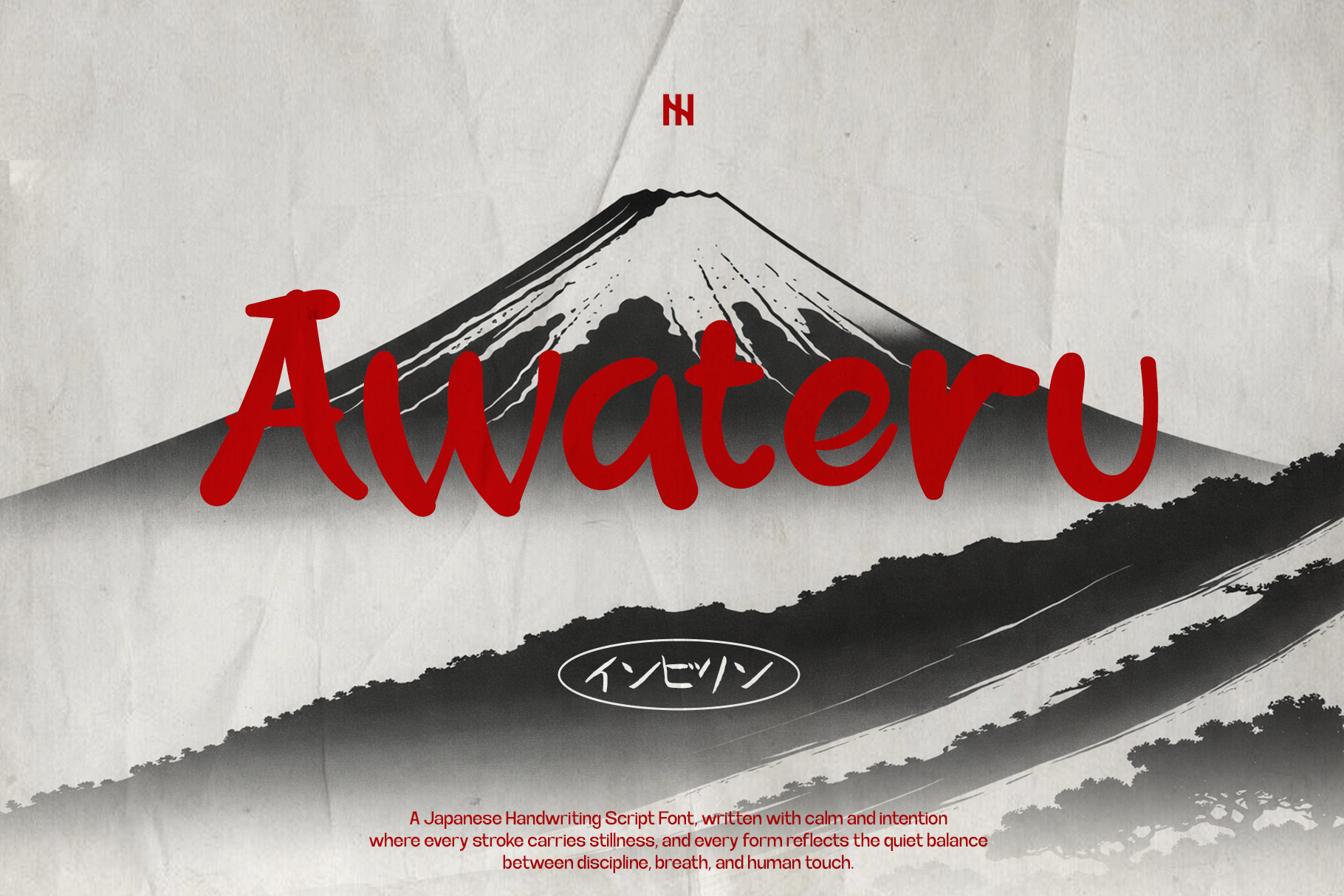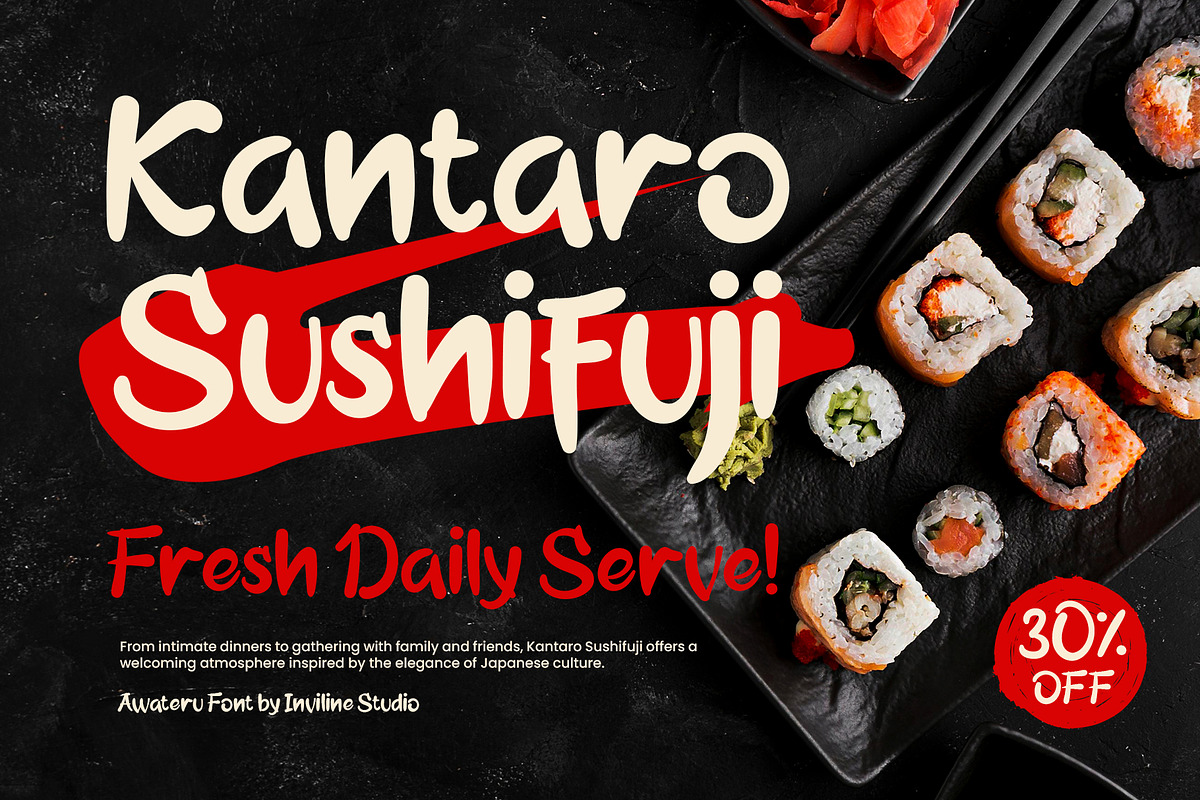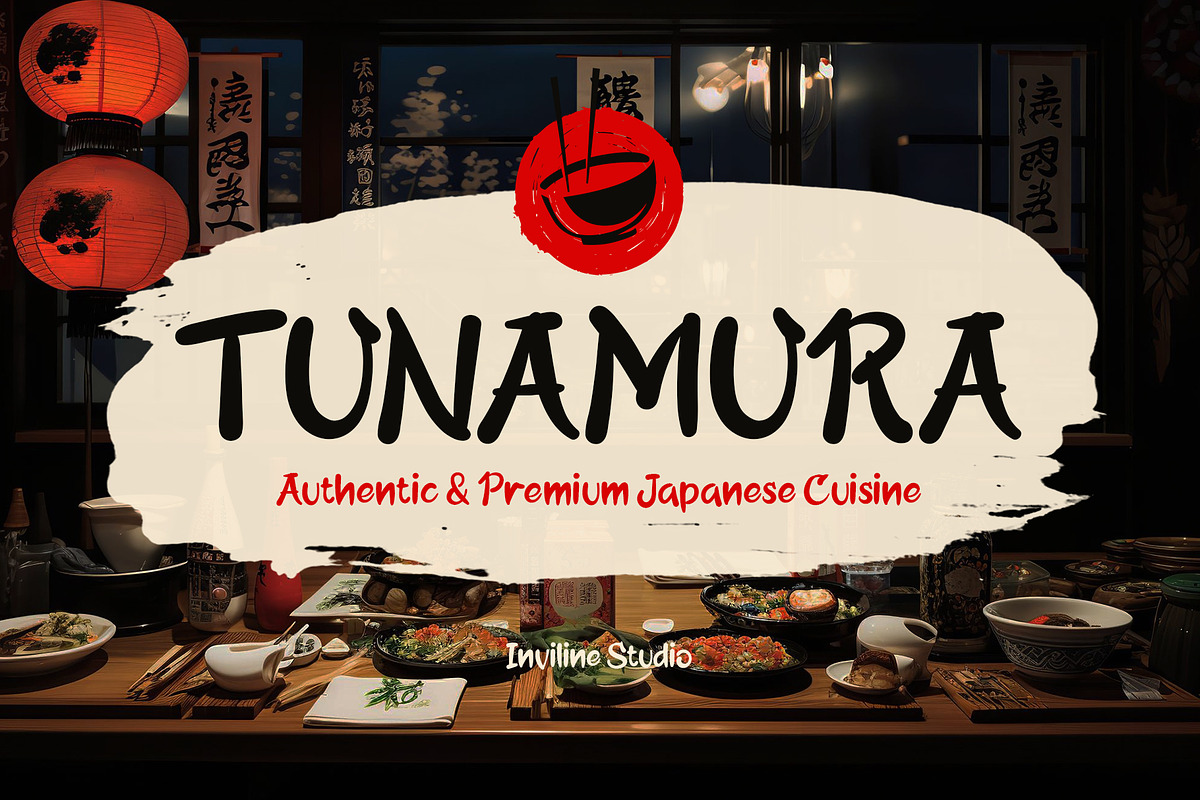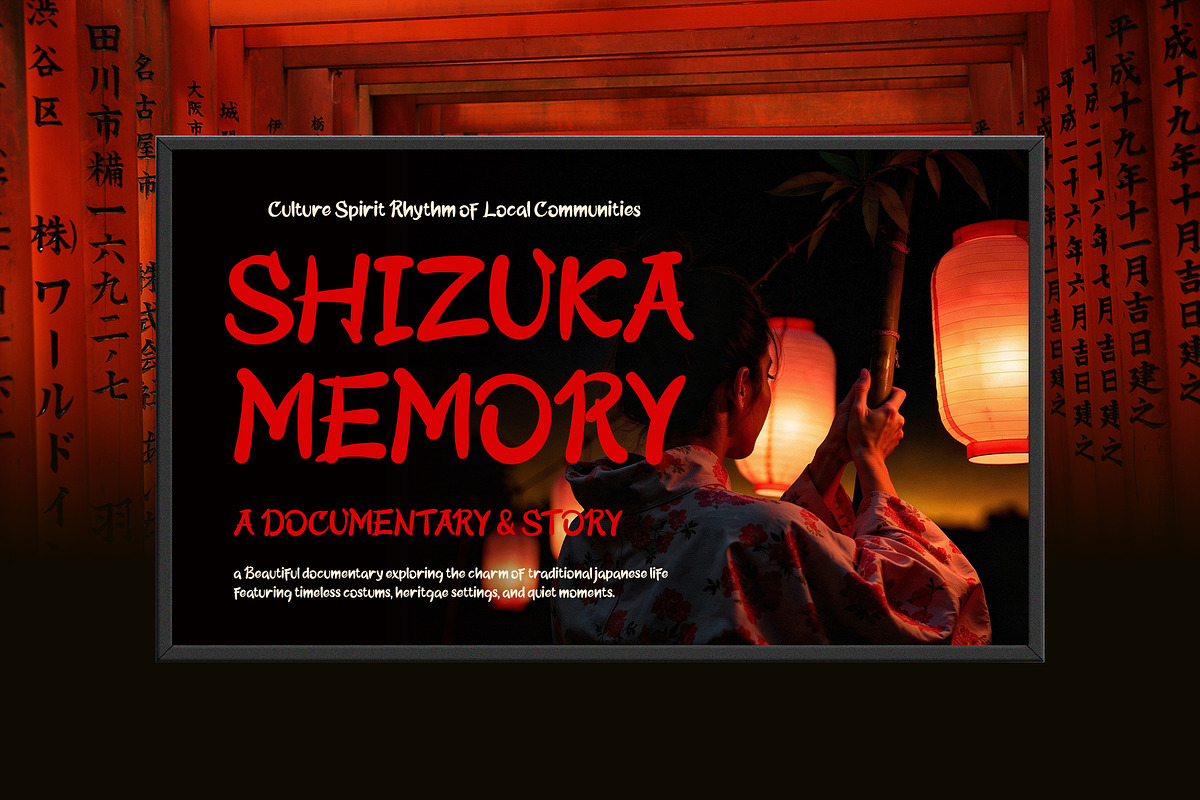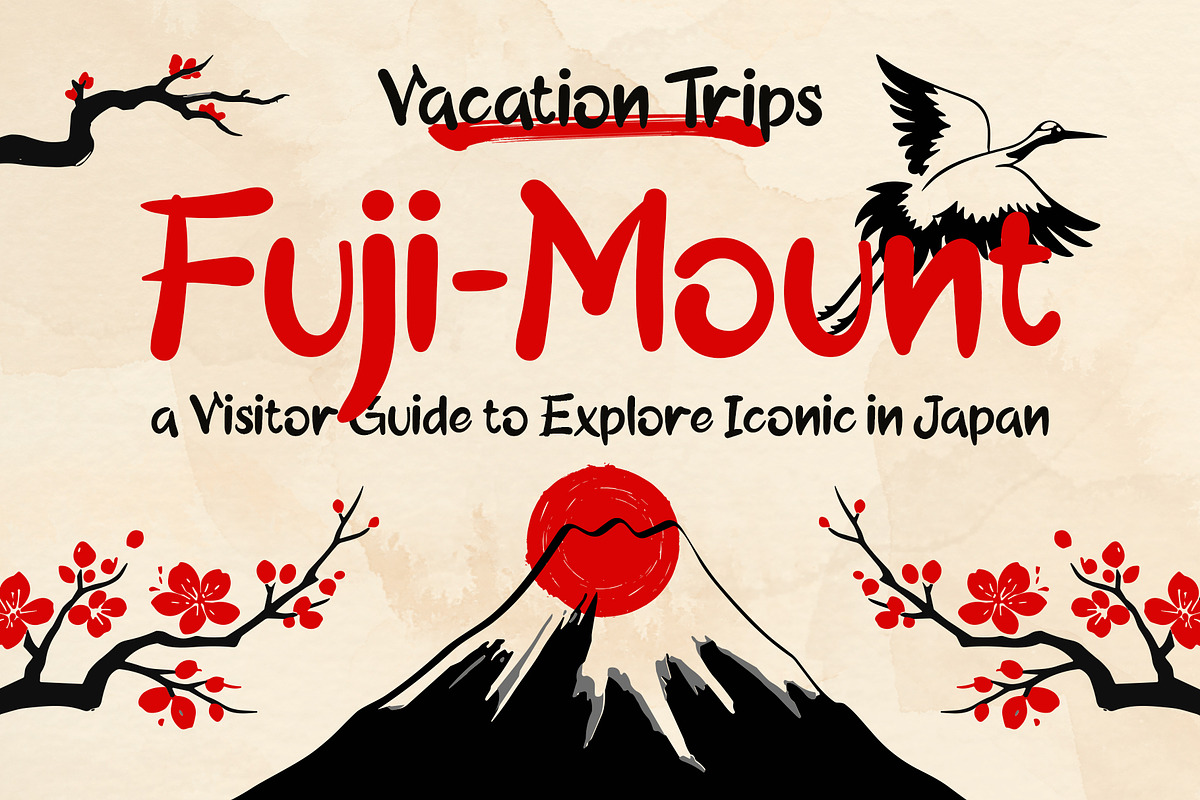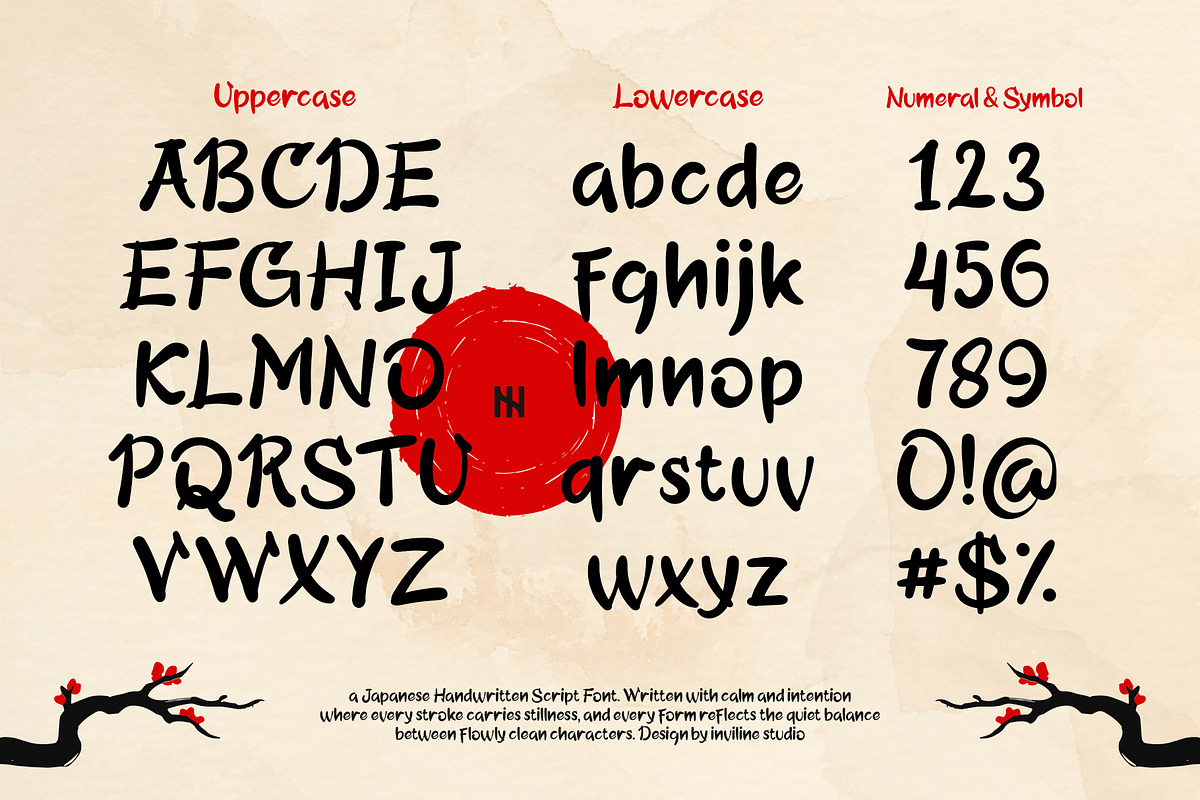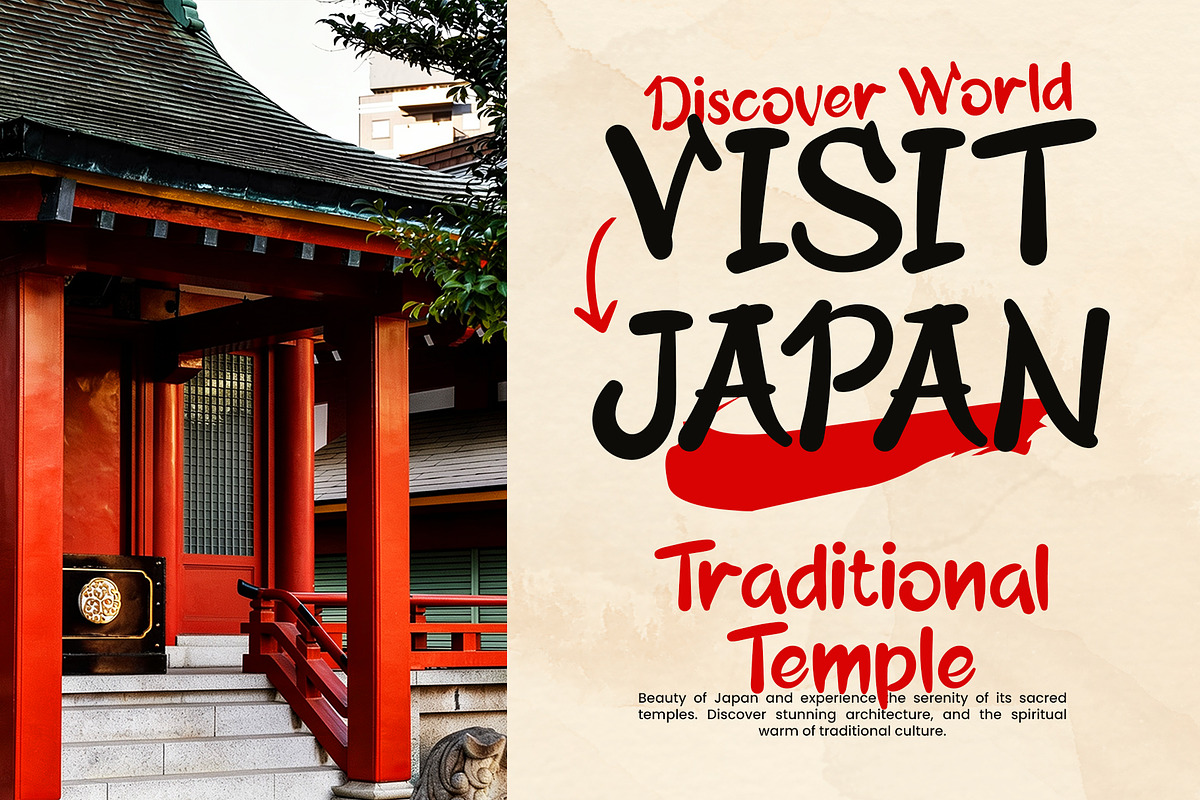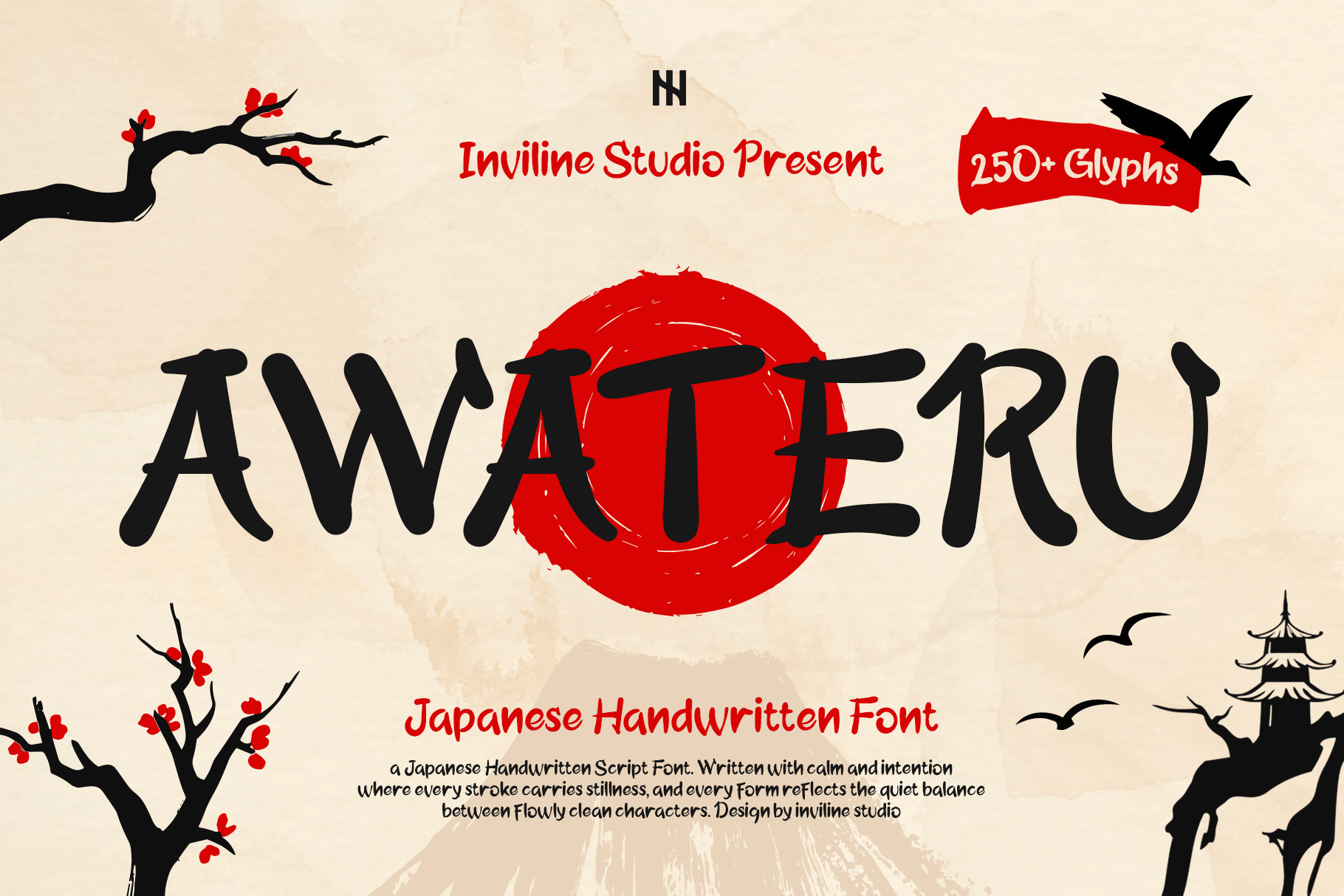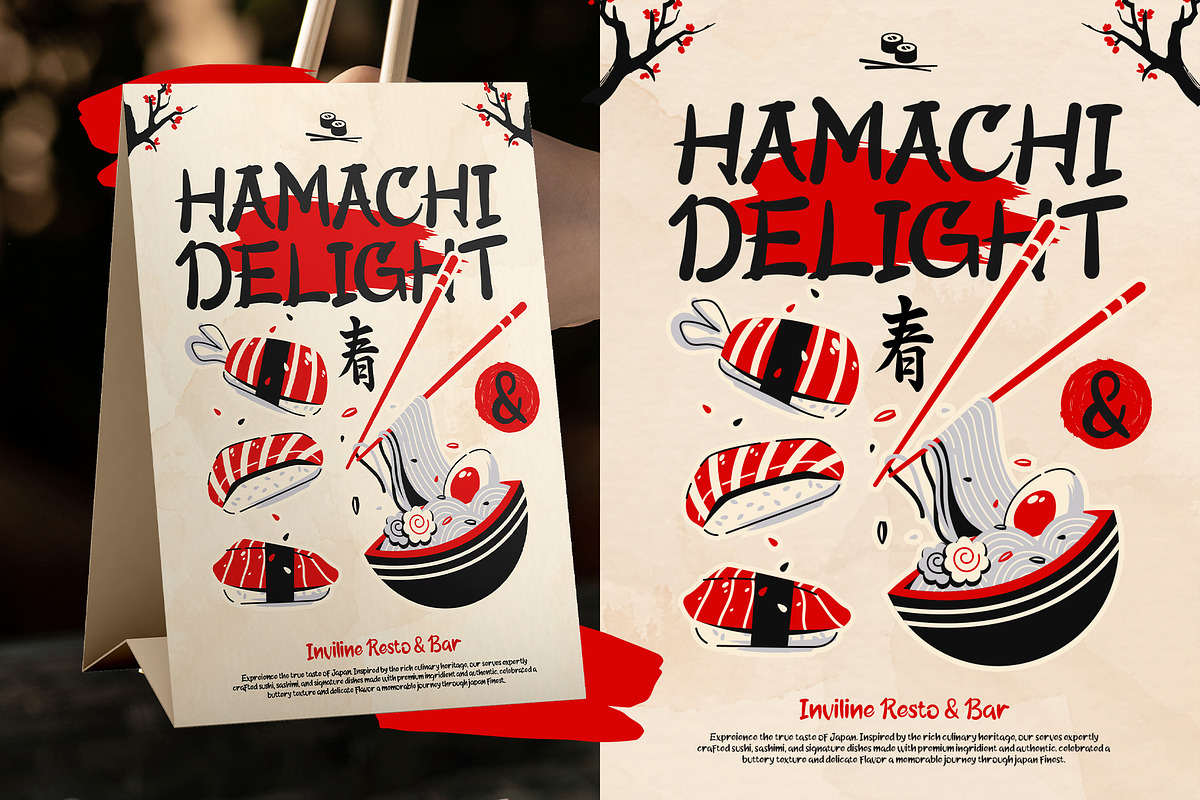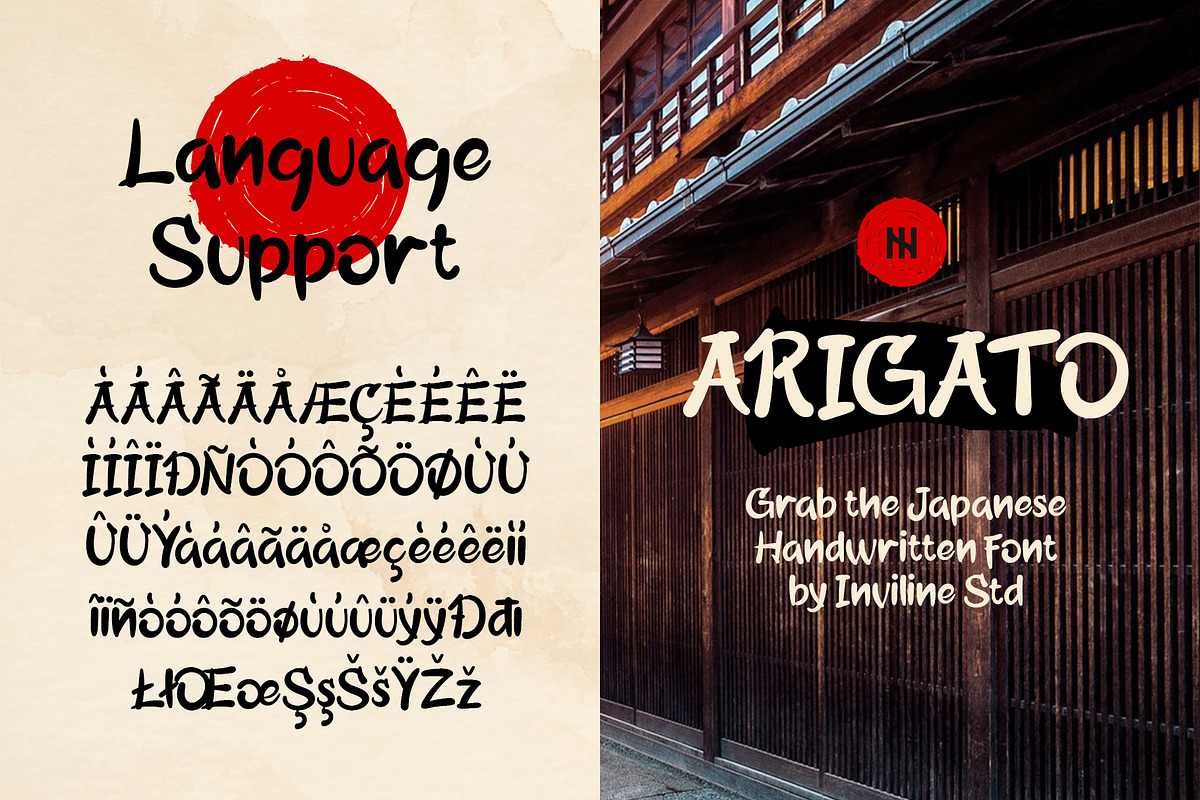
Awateru - Japanese Handwritten Font
Awateru is a Japanese-inspired handwritten display font created with expressive brush strokes, organic shapes and a calm handcrafted personality. Its distinctive letterforms combine traditional East Asian visual influences with modern Latin typography.
Designed to feel artistic, cultural and approachable, Awateru gives headlines and short messages a strong handmade character. The font is suitable for travel campaigns, restaurant branding, cultural events, packaging, posters and creative projects inspired by Japan.
Awateru features bold, irregular letterforms with visible handwritten movement. Its varied stroke widths and slightly imperfect construction create an authentic brush-lettering appearance while keeping the characters clear and recognizable.
The font includes more than 250 glyphs, covering uppercase and lowercase letters, numbers, punctuation and supporting characters. Awateru works best in medium and large sizes, where its expressive details can become the main visual focus.
Although the design is inspired by Japanese visual culture, the preview primarily presents a Latin alphabet typeface. It should not be marketed as containing Japanese kanji, hiragana or katakana unless those writing systems are included in the final font files.
Awateru handwritten display font
More than 250 glyphs
Uppercase characters A–Z
Lowercase characters a–z
Numerals 0–9
Standard symbols and punctuation
Japanese-inspired handwritten style
Expressive brush-stroke construction
Bold and organic letterforms
More than 250 glyphs
Complete numerals
Standard punctuation and symbols
Strong readability at display sizes
Handmade and slightly imperfect texture
Suitable for print and digital projects
Distinctive cultural and travel-oriented personality
Ideal for headlines, logos and short phrases
Easy to pair with clean serif or sans-serif fonts
Stylistic Alternates: no dedicated alternate characters are clearly confirmed in the supplied preview
Ligature pairs: no dedicated ligature set is clearly confirmed in the supplied preview
Ideal For / Use Cases
Japanese-inspired branding
Travel posters
Tourism campaigns
Restaurant identities
Ramen and sushi menus
Café branding
Food packaging
Product labels
Cultural event posters
Festival graphics
Editorial headlines
Book covers
Album artwork
YouTube thumbnails
Promotional banners
Logo design
Merchandise graphics
Sticker designs
Invitations
Postcards
Souvenir designs
Hotel and resort branding
Asian-inspired packaging
Creative advertising
Use the font at medium or large sizes to highlight its organic brush details. It works especially well for titles, logos, product names and short promotional messages.
Pair Awateru with a clean sans-serif font for body copy and supporting information. Red, black, cream and natural paper textures can strengthen its Japanese-inspired visual direction without reducing readability.